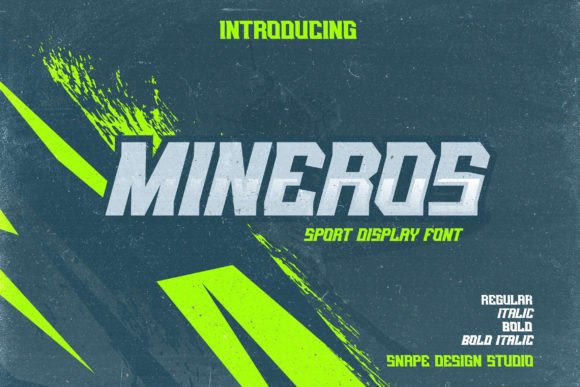
Journey into the world of Mineros Font, a game-changing display font that ignites the spirit of competition and fuels your creative engine. Crafted by the ingenious minds at Snapedsgn, Mineros Font bursts onto the scene as an athletic masterpiece, ready to elevate your designs to new heights of victory.
With its razor-sharp angles and audacious curves, Mineros Font exudes an unwavering confidence, daring you to push the boundaries of creativity. Its bold and competitive nature makes it the ultimate choice for crafting logos that command attention and jerseys that inspire champions. Unleash the power of Mineros Font and watch as your designs morph into emblems of strength and athleticism.
Step into the arena of creative competition with Mineros Font and leave your mark on the world. Its unique design elements are meticulously engineered to capture the essence of athletic energy, igniting a visual symphony that resonates with viewers. Whether you're crafting logos for fearless brands or designing jerseys for unstoppable teams, Mineros Font is your weapon of choice.
Elevate your designs with the sheer force of Mineros Font's powerful style. Its bold and dynamic presence demands attention, leaving a lasting impression that echoes the roar of a crowd. Allow Mineros Font to be your creative ally, propelling your designs to the forefront of the digital battlefield.